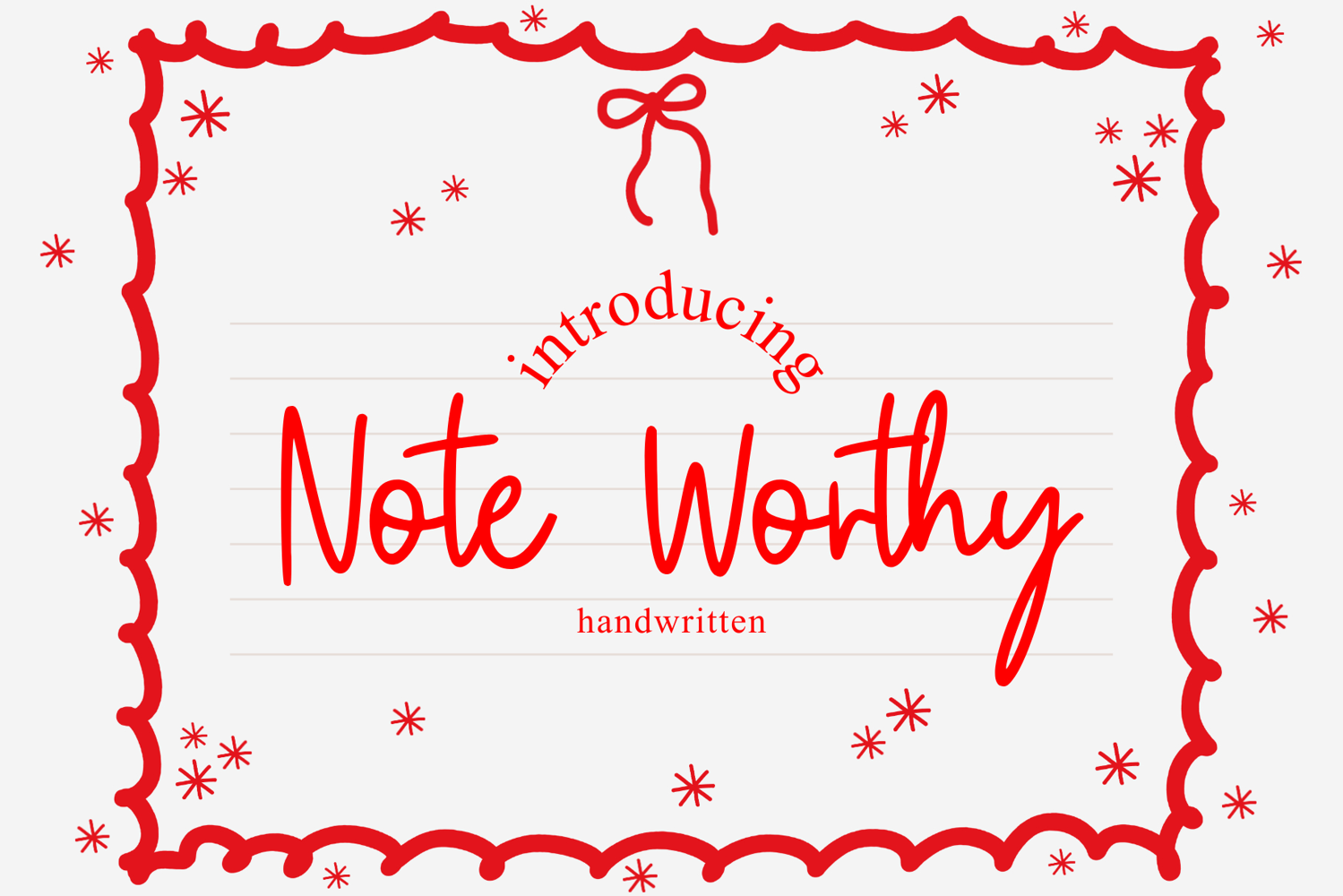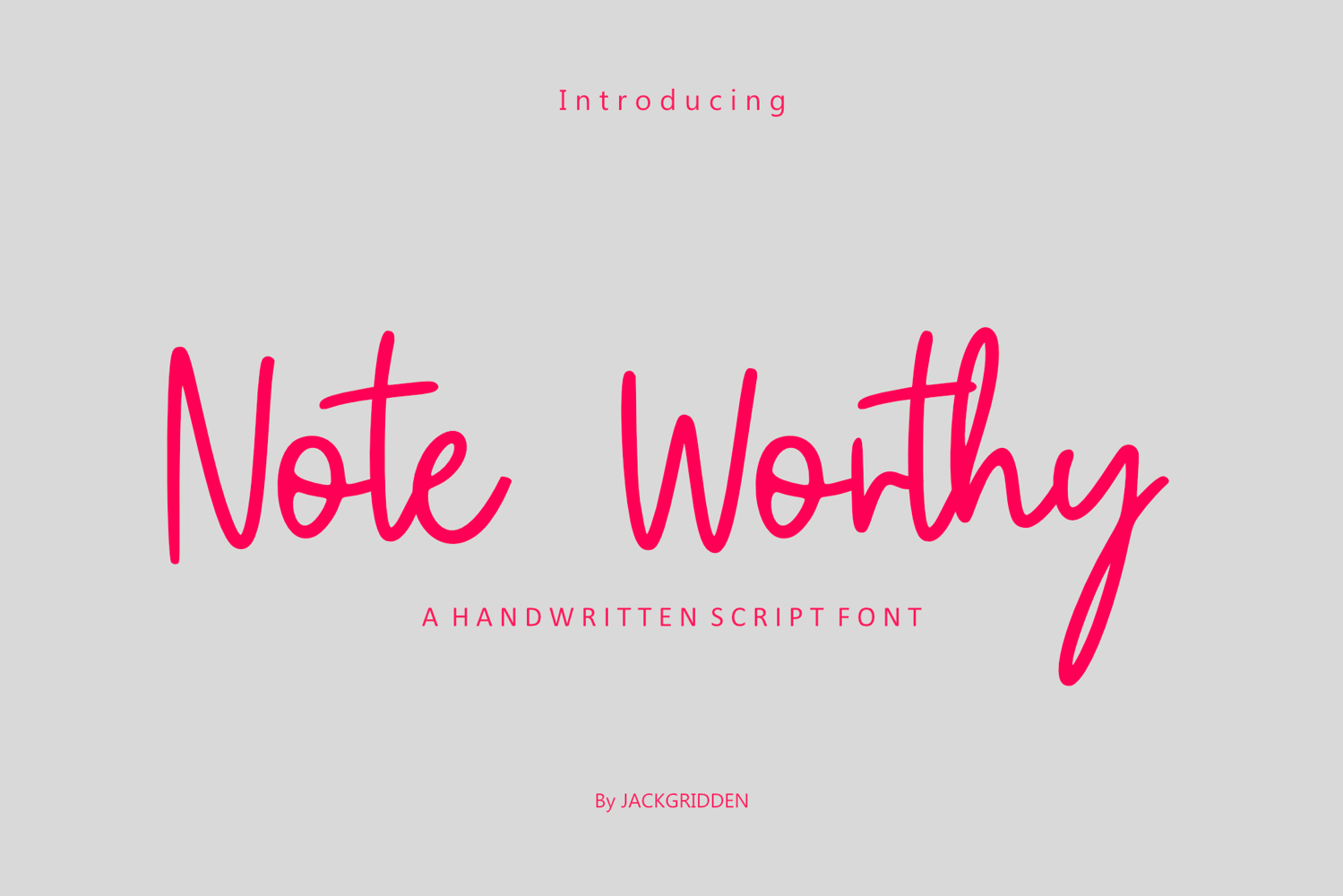
Note Worthy
NoteWorthy
Note Worthy Font is a premium script font that exudes elegance and sophistication. With its intricate loops and flourishes, this font adds a touch of charm and grace to any project. Perfect for invitations, branding, and other creative endeavors that require a touch of class.